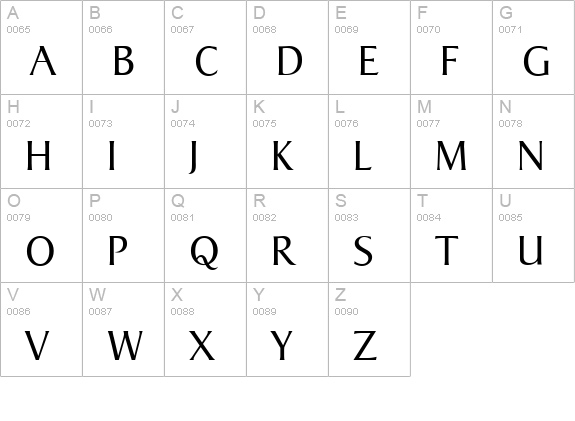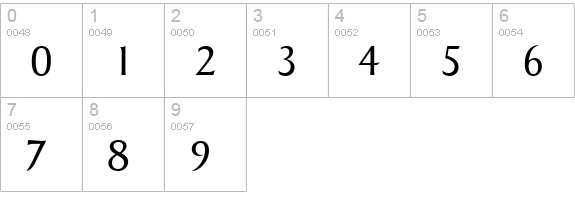
SigvarSerial-Light-Regular is a refined, elegant variant in the SigvarSerial typeface family \xE2\x80\x94 well suited to elegant body text, refined sub-headings, and luxury branding.
SigvarSerial-Light-Regular is a sleek and modern font that exudes elegance and sophistication. With its clean lines and balanced proportions, this typeface is perfect for adding a touch of refinement to any design project. The light weight of the font gives it a delicate and airy feel, making it ideal for conveying a sense of sophistication and grace. What sets SigvarSerial-Light-Regular apart is not only its aesthetic appeal, but also the fact that it is available for free download at FontsMarket.com. This means that you can easily access and use this stunning font in your projects without any cost, making it a valuable resource for designers, creatives, and anyone looking to elevate their work with a touch of style. Whether you are designing a logo, creating a poster, or crafting a stylish website, SigvarSerial-Light-Regular is sure to make a lasting impression with its timeless beauty and versatility. Download this font today and elevate your design projects with its elegant charm and sophistication.